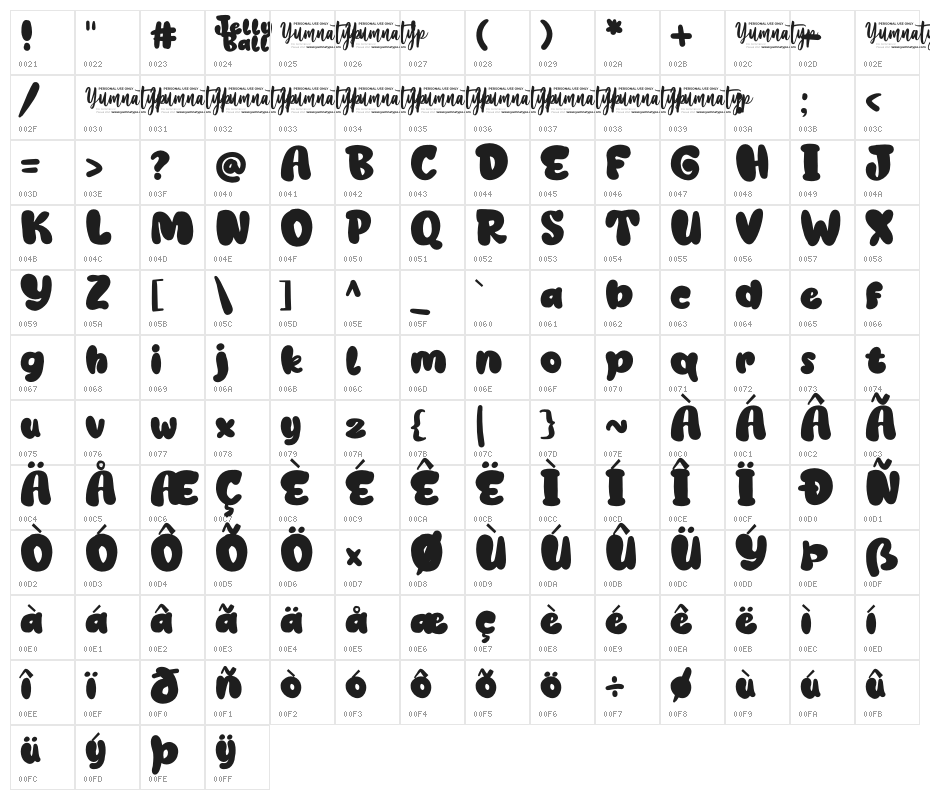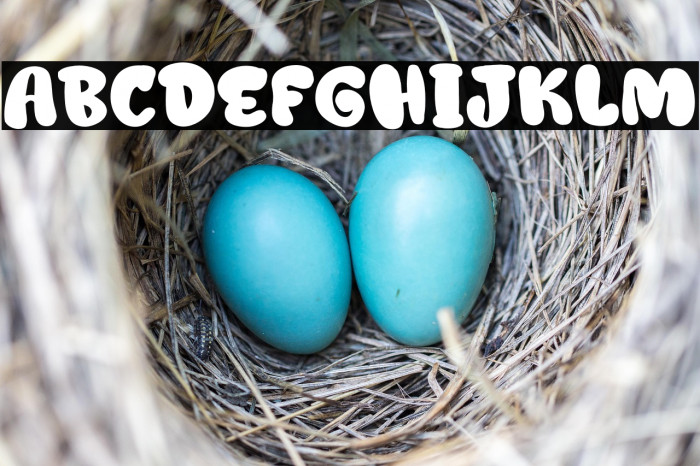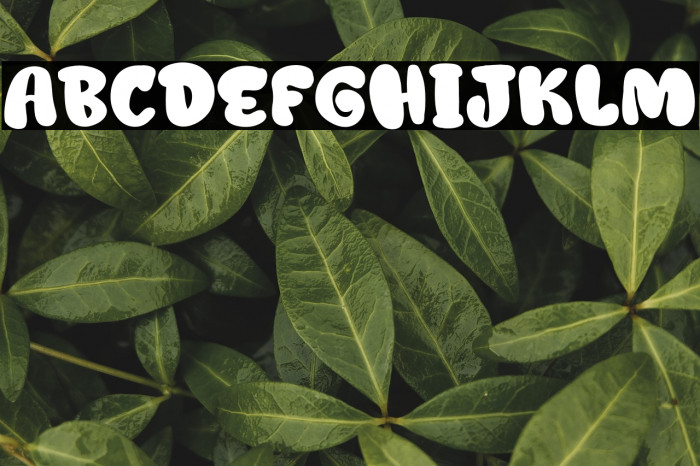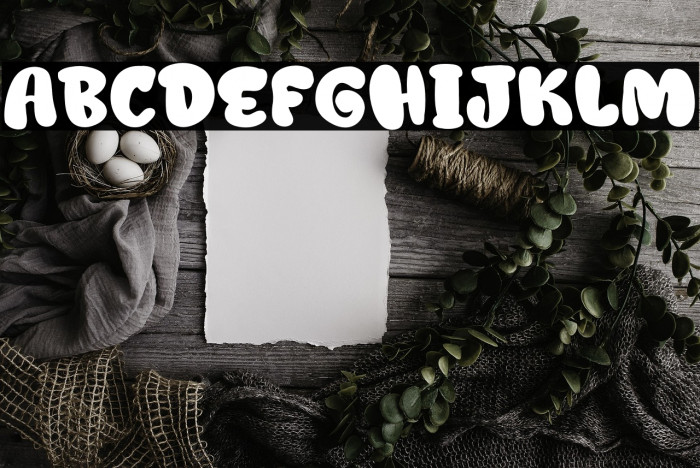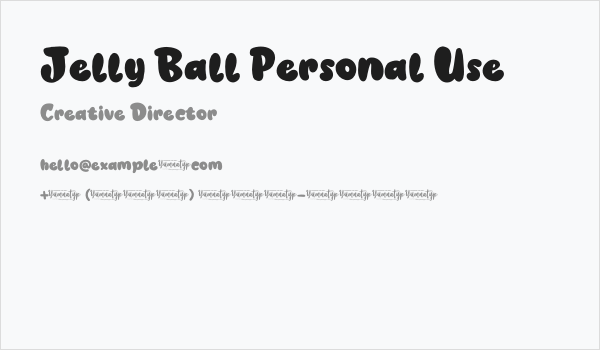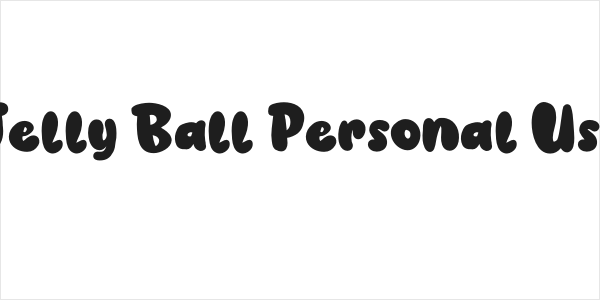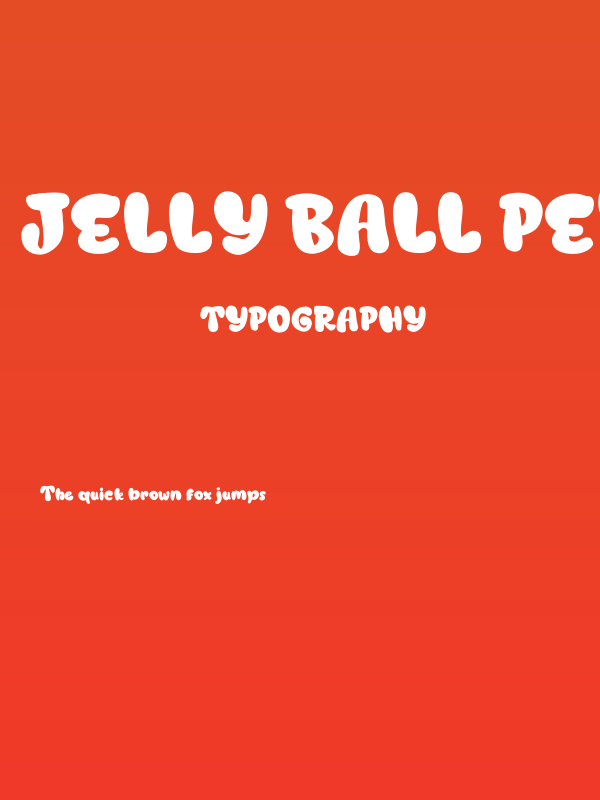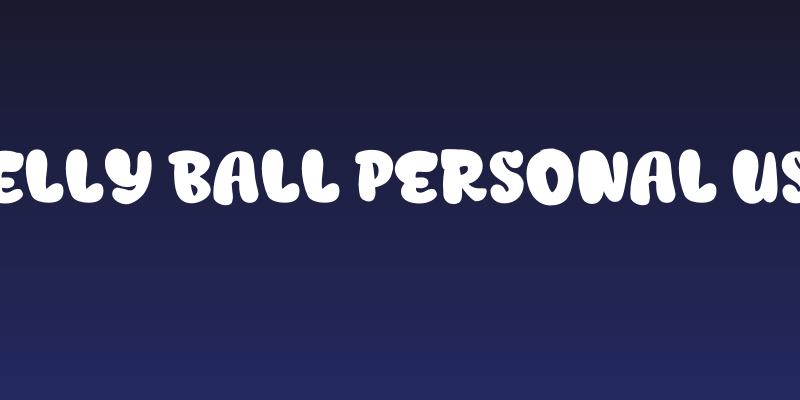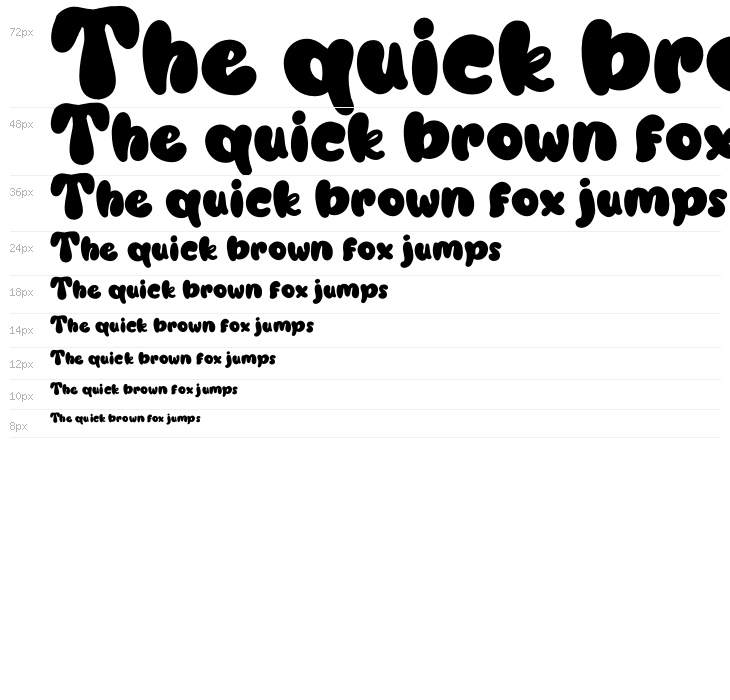
Jelly Ball Personal Use Font
Jelly Ball Personal Use Description
This playful and bold font features rounded, bubbly characters that give it a whimsical and friendly appearance. The letters are thick and have a consistent stroke width, creating a uniform look across both uppercase and lowercase alphabets. The font's design is reminiscent of inflated balloons or jelly, making it ideal for projects that require a fun and approachable aesthetic. Its unique style is eye-catching and can add a touch of personality to any design. The characters are well-spaced, ensuring readability while maintaining the font's distinctive charm.
| Proposed Projects | Children's books, party invitations, playful branding, and toy packaging. |